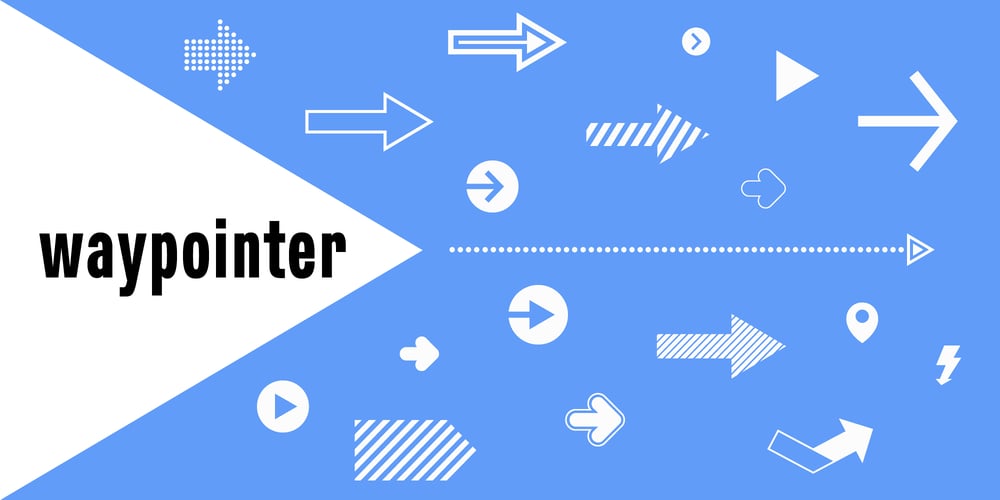
Waypointer Font Family was designed by Donald Tarallo, Alex Tarallo and published by Tarallo Design. Waypointer contains 1 styles and family package options. Waypointer is a font of arrows. These can be used to indicate direction or emphasis in documents, signage, or websites. The arrow sizes match the standard cap height of most fonts making it simple to use within text.The arrows are accessed with the standard keyboard keys. Make your own arrow of any length with the 1 to 9 keys. Use uppercase (A to Z) and lowercase (a to z) for pre-made arrows that point right, left, up, or down.Those who use OpenType will find useful features, such as stylistic sets for changing arrow directions in 360 degree angles and stylistic alternates for quick changes between pointing right and left.It has a few extras such as a map pin, anchor, and lightning bolt. These are included and accessed with the comma, period, and zero key.